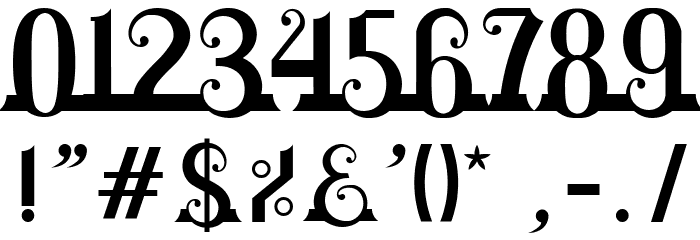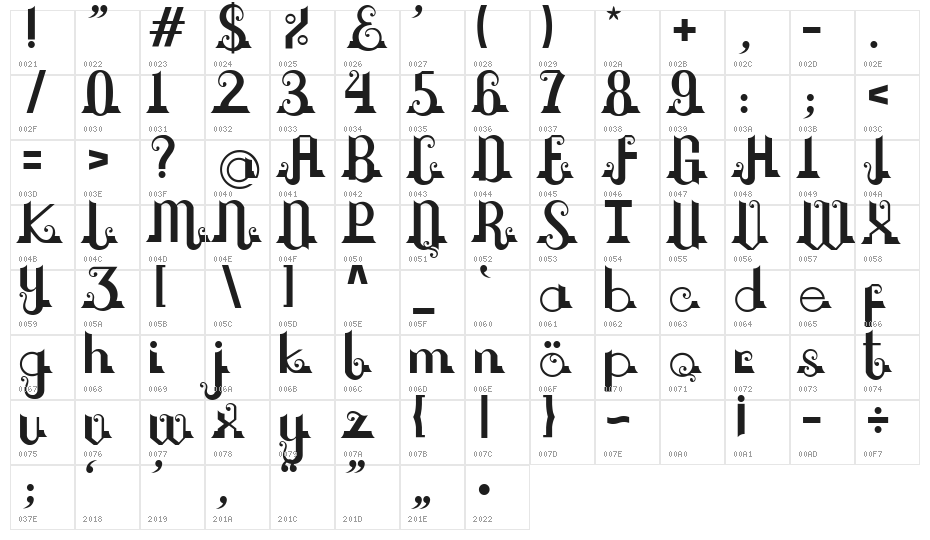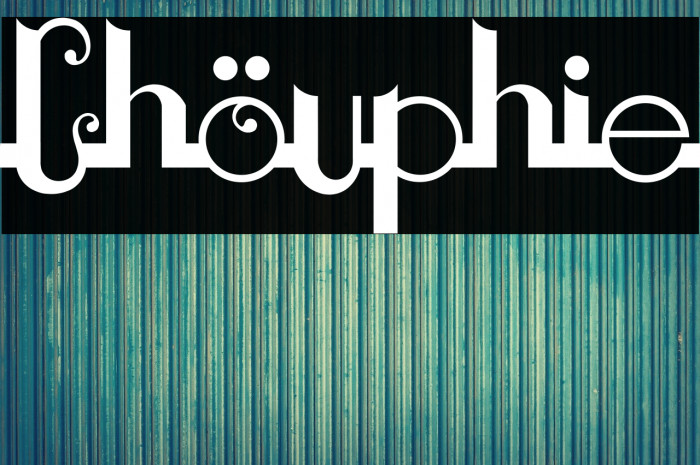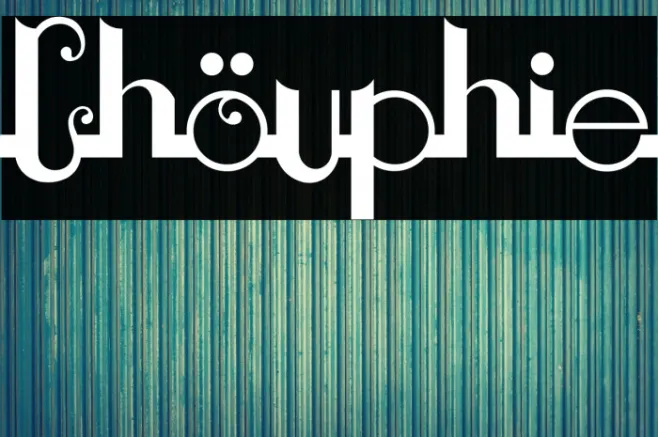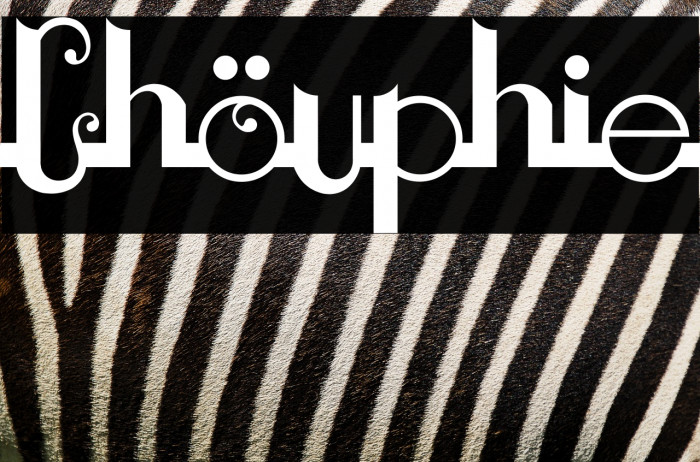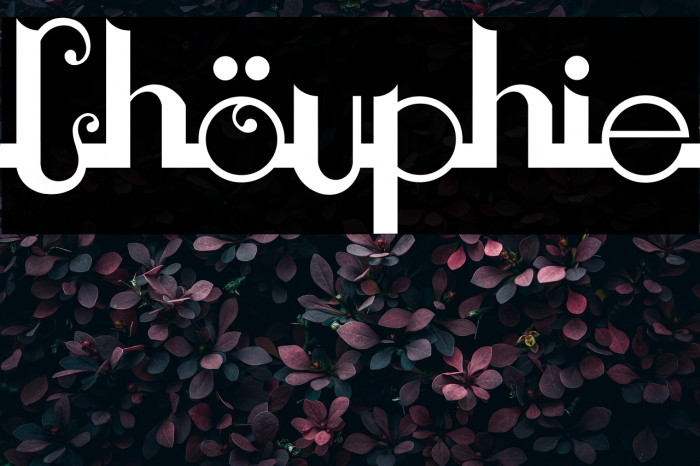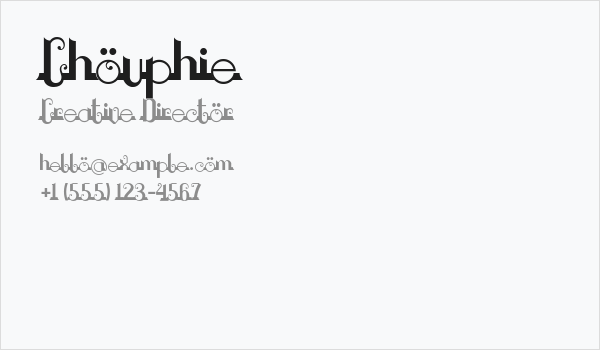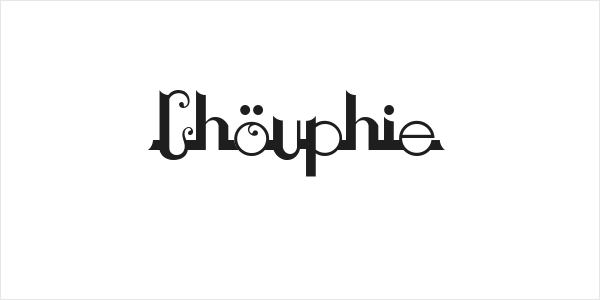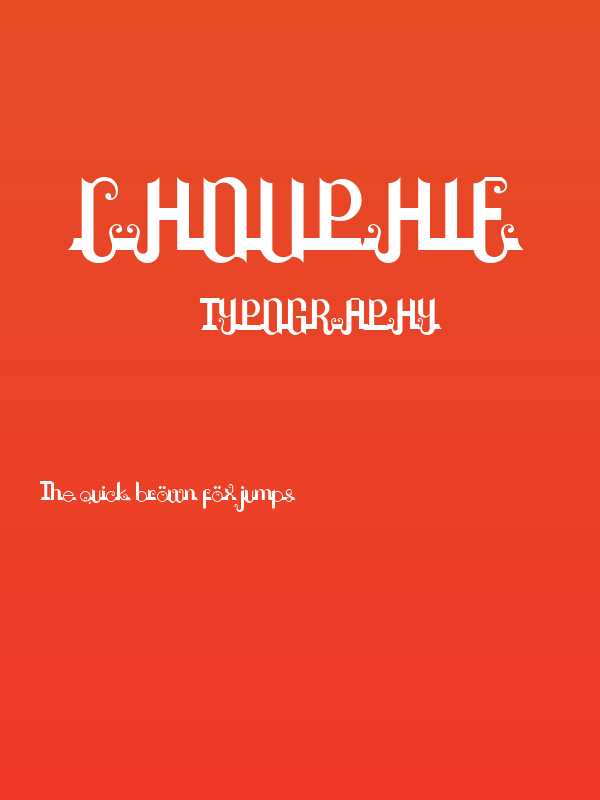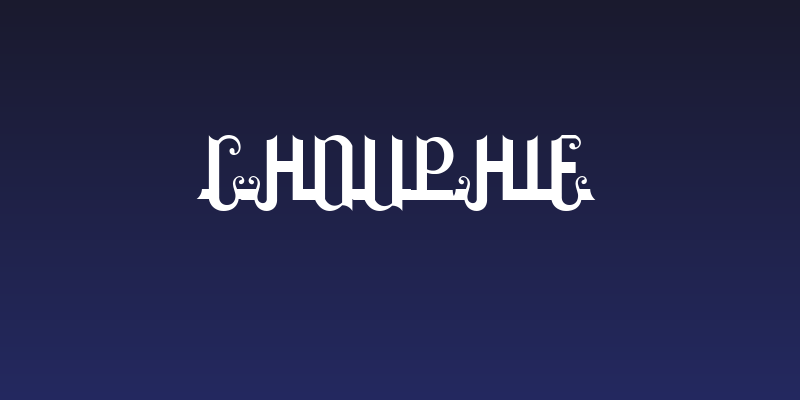
Chouphie Font
Chouphie Description
This font is a highly decorative and unique typeface characterized by its bold and intricate design. Each letter features elaborate curls and swirls that extend from the main strokes, giving it an ornate and whimsical appearance. The uppercase and lowercase letters maintain a consistent style, with the lowercase letters mirroring the decorative elements of the uppercase. The numerals and special characters are equally embellished, ensuring a cohesive look across all glyphs. This font's distinct style makes it stand out, ideal for projects that require a touch of elegance and creativity.
Use CaseHeadlines, Logos, Invitations
Proposed ProjectsIdeal for wedding invitations, event posters, branding for luxury products, and artistic projects that require a unique and elegant touch.